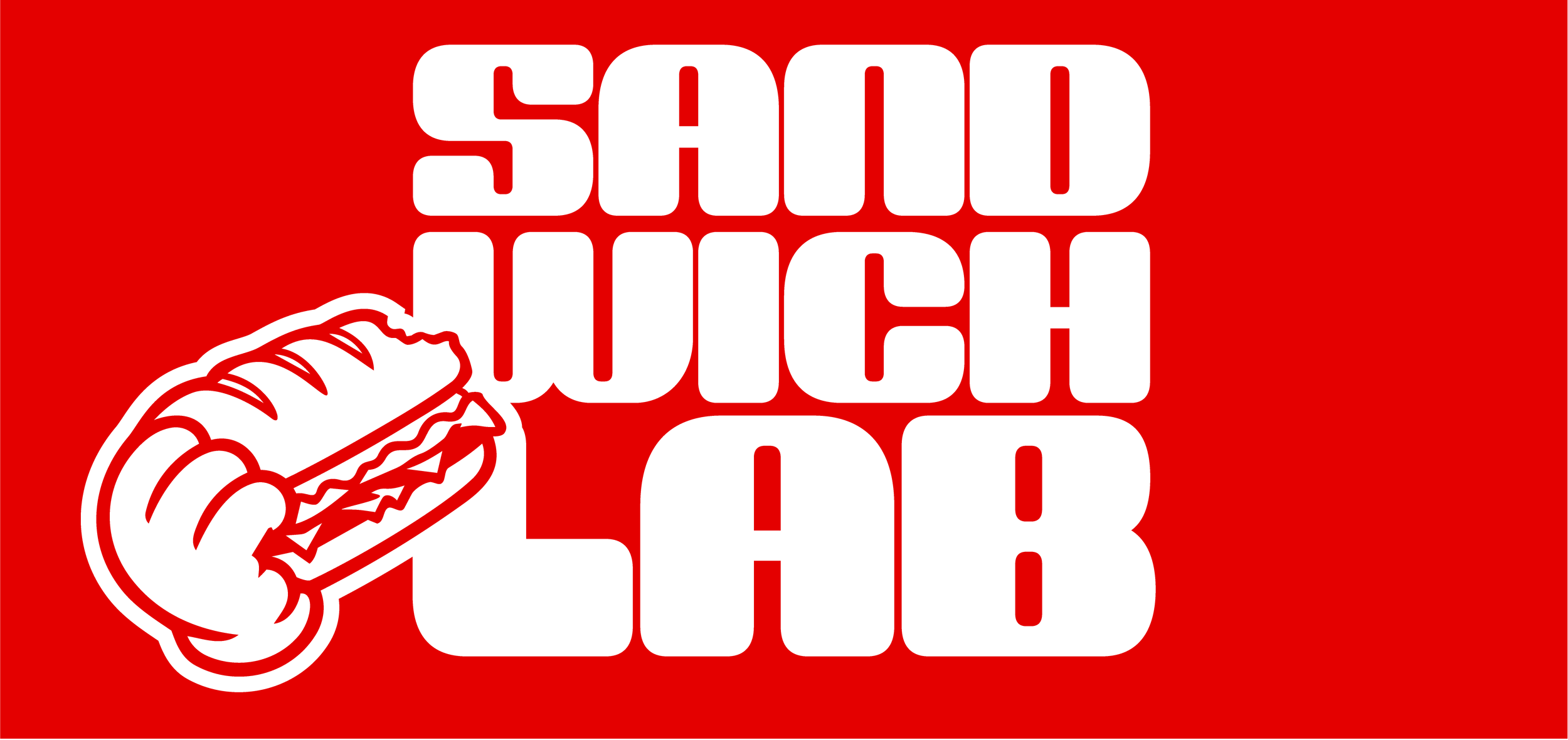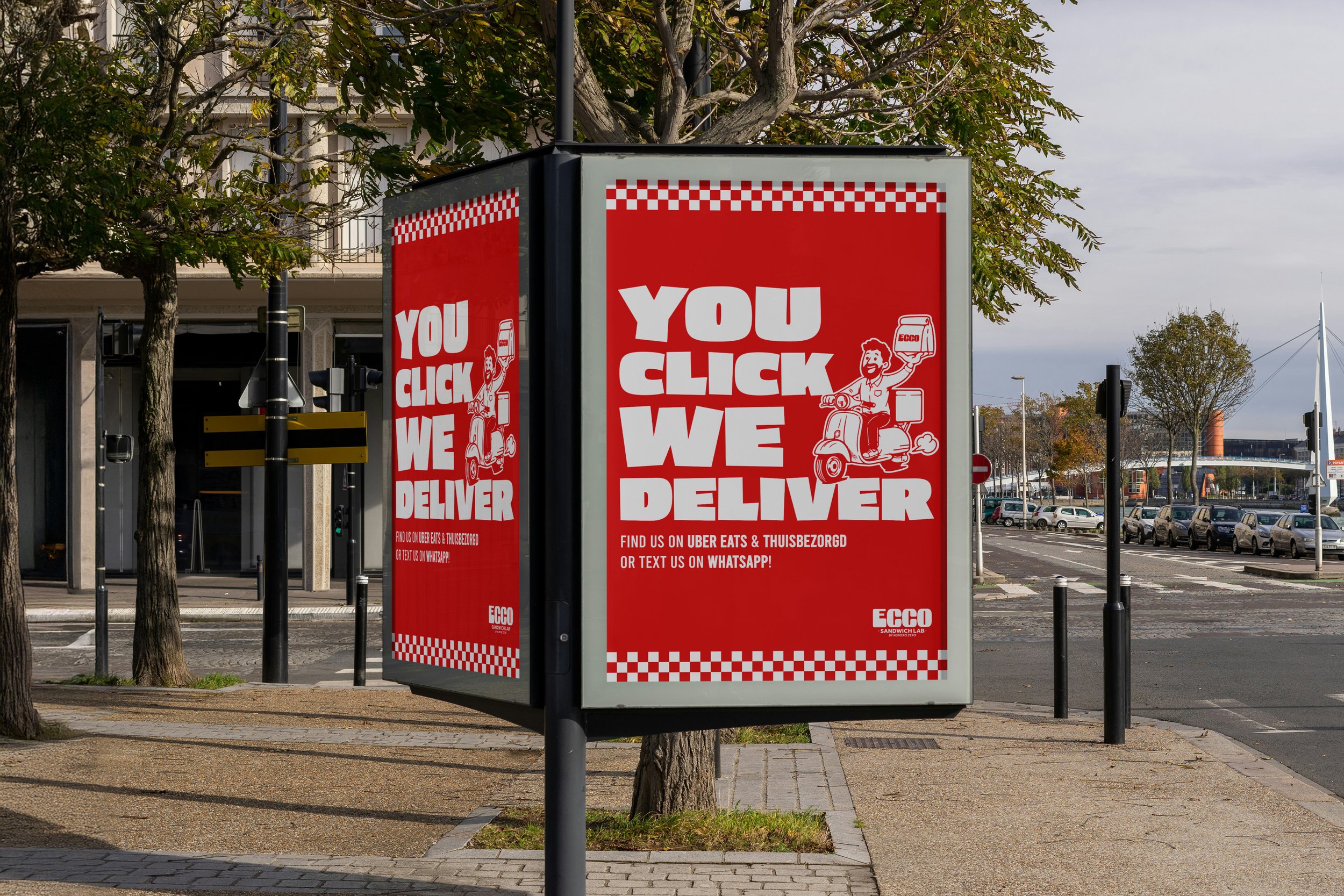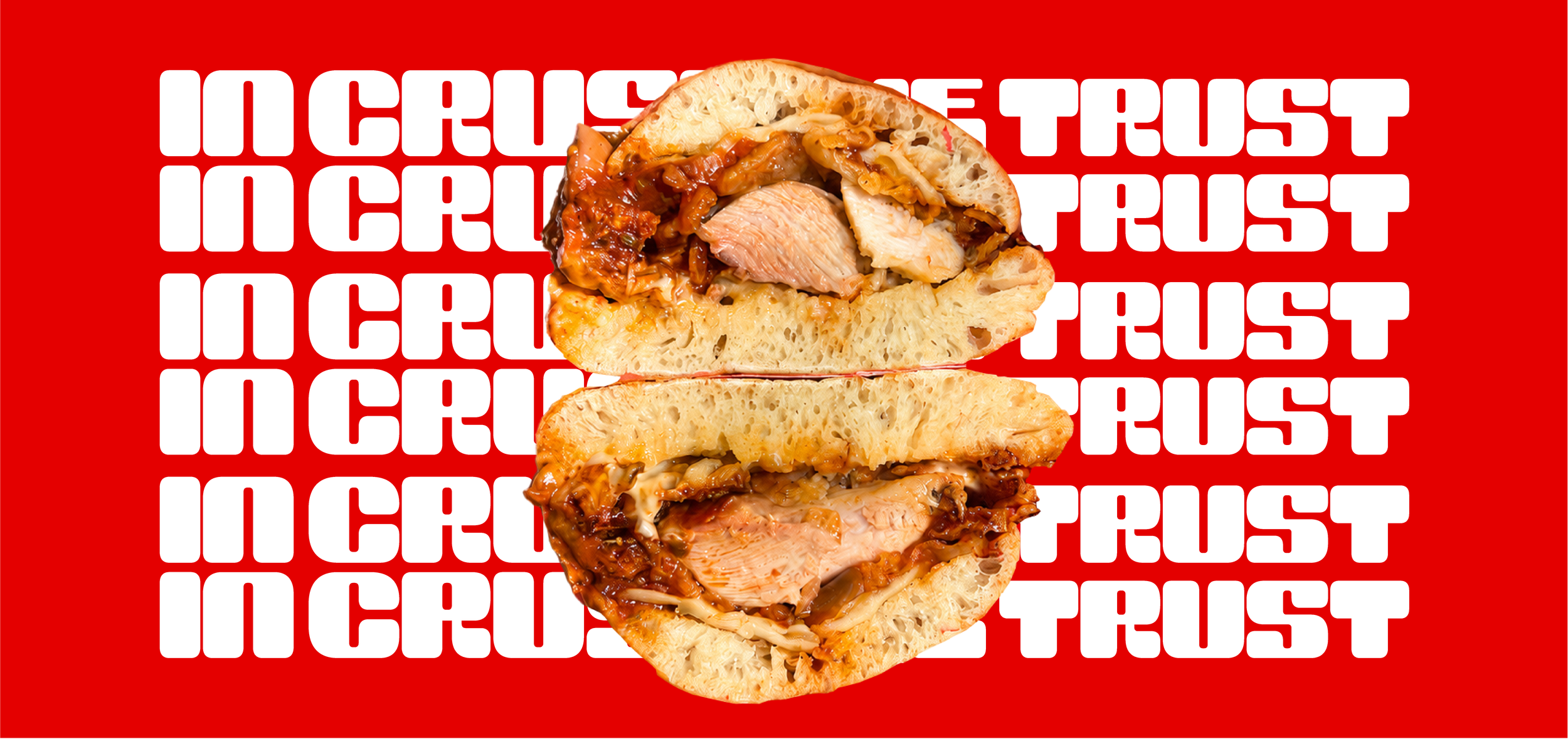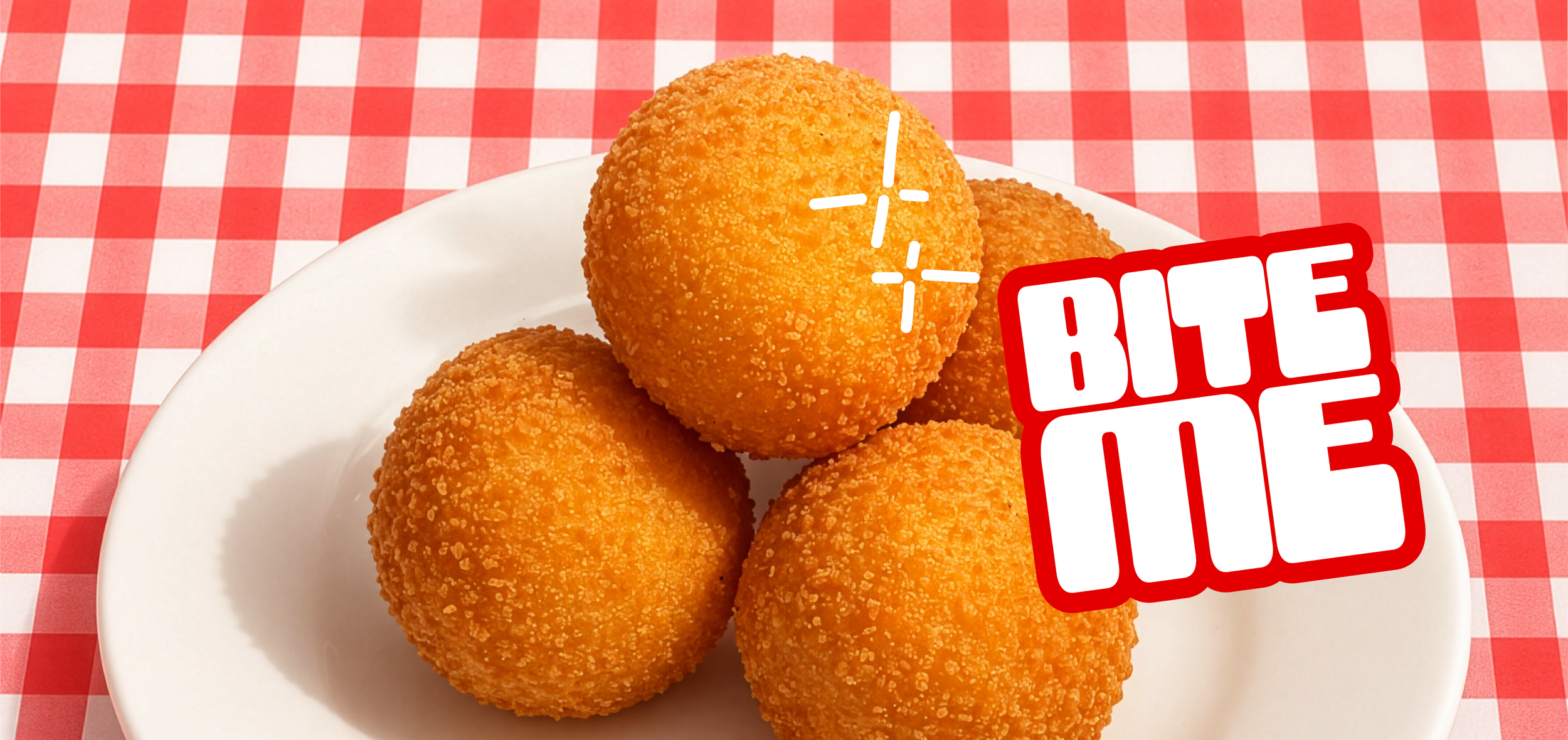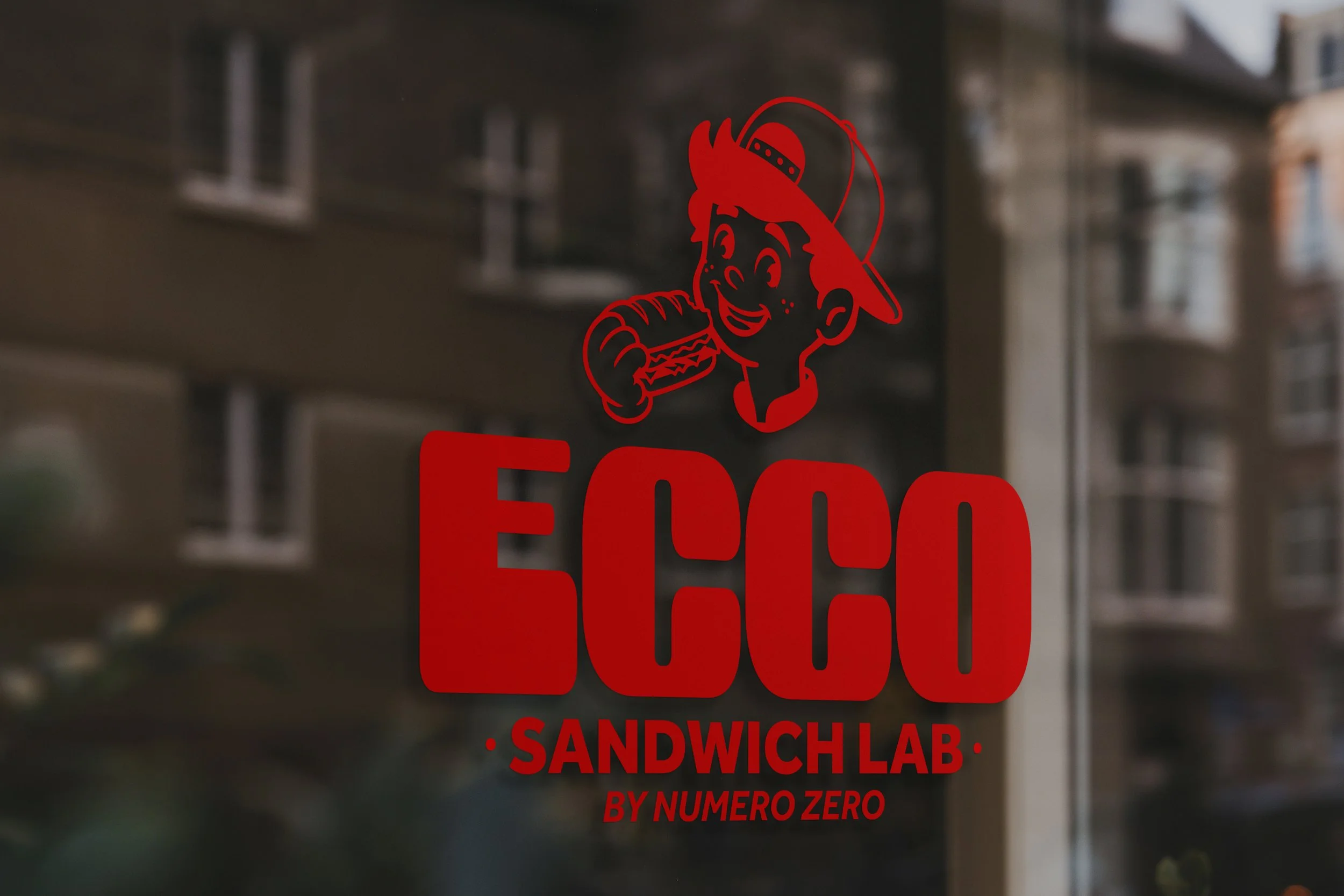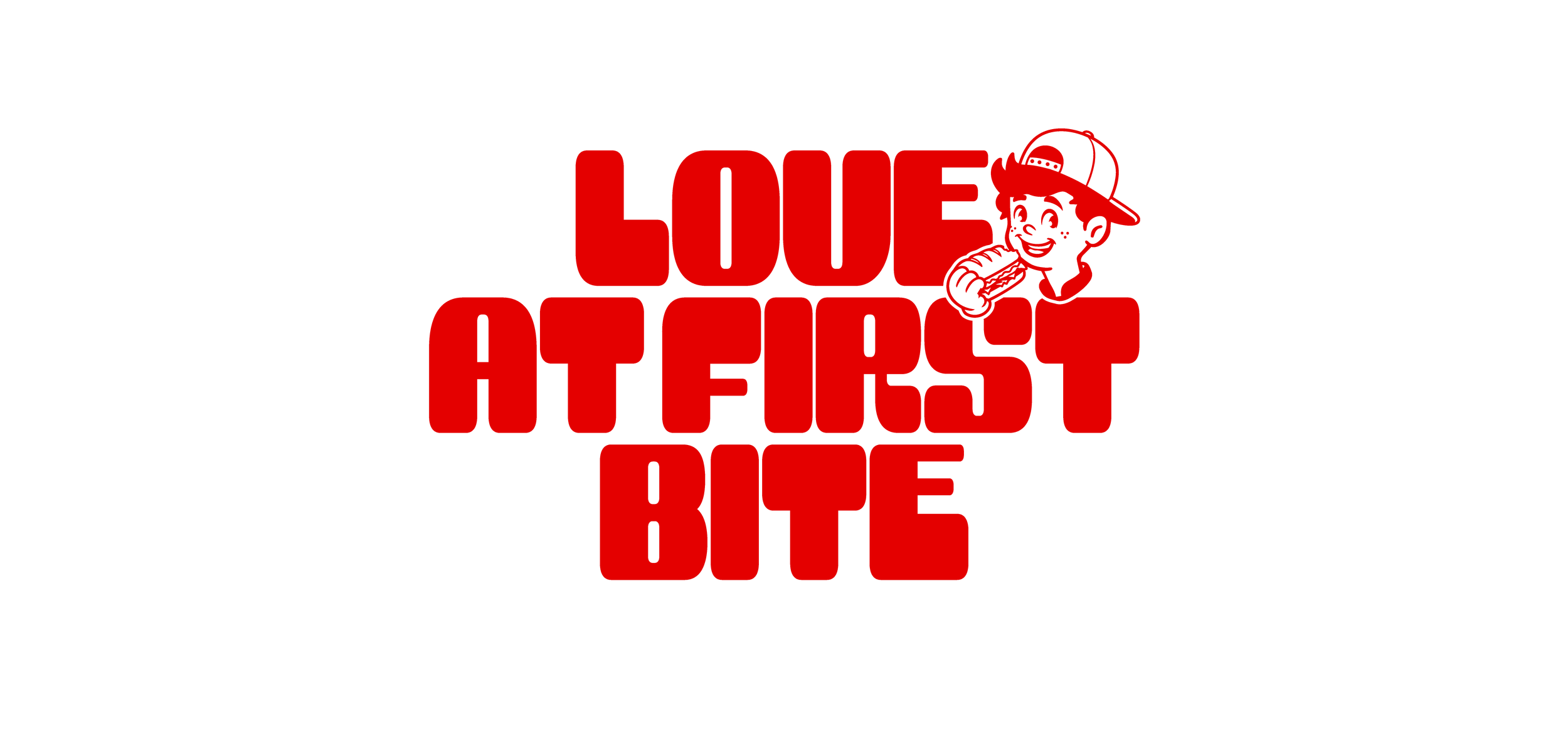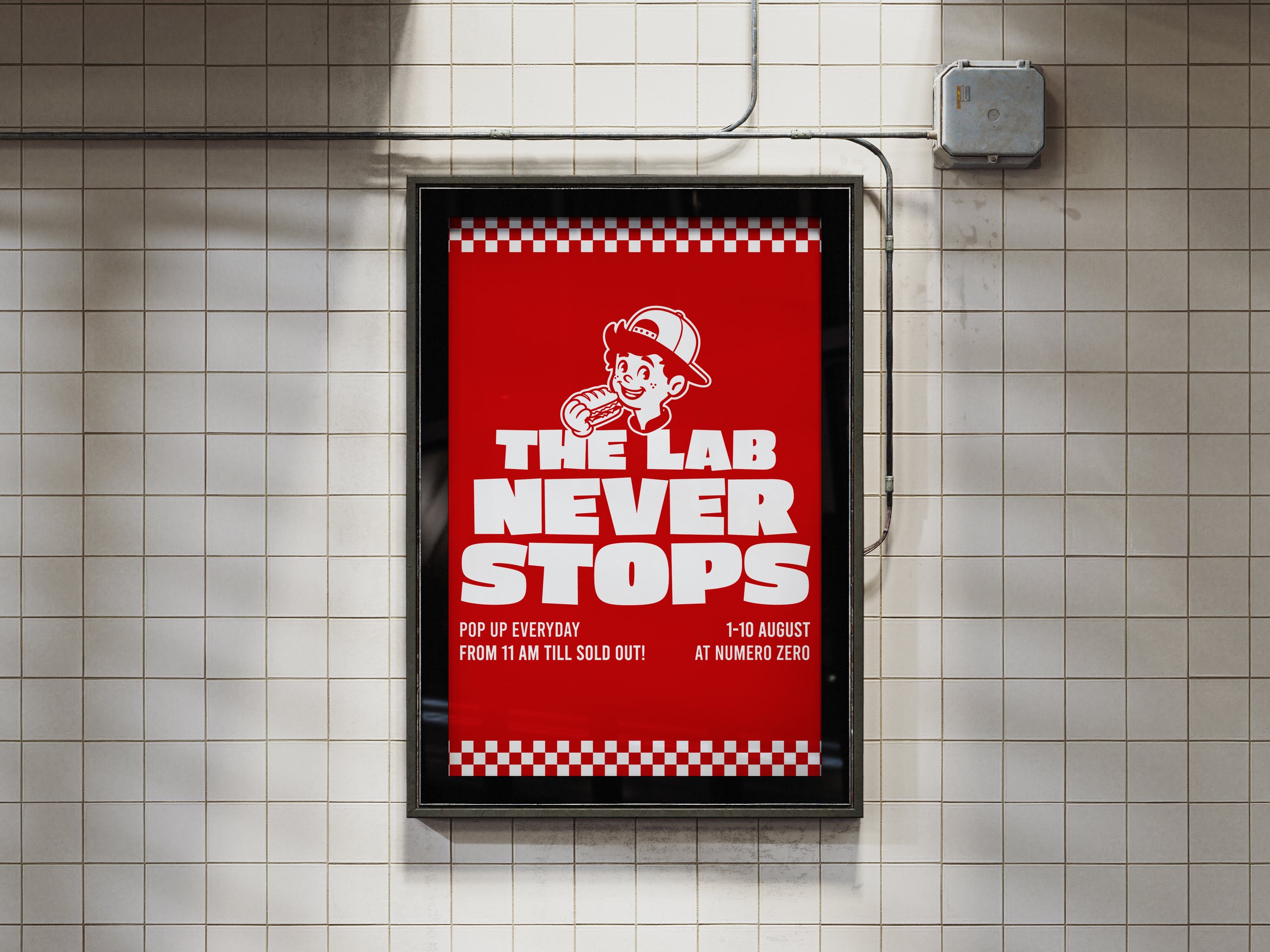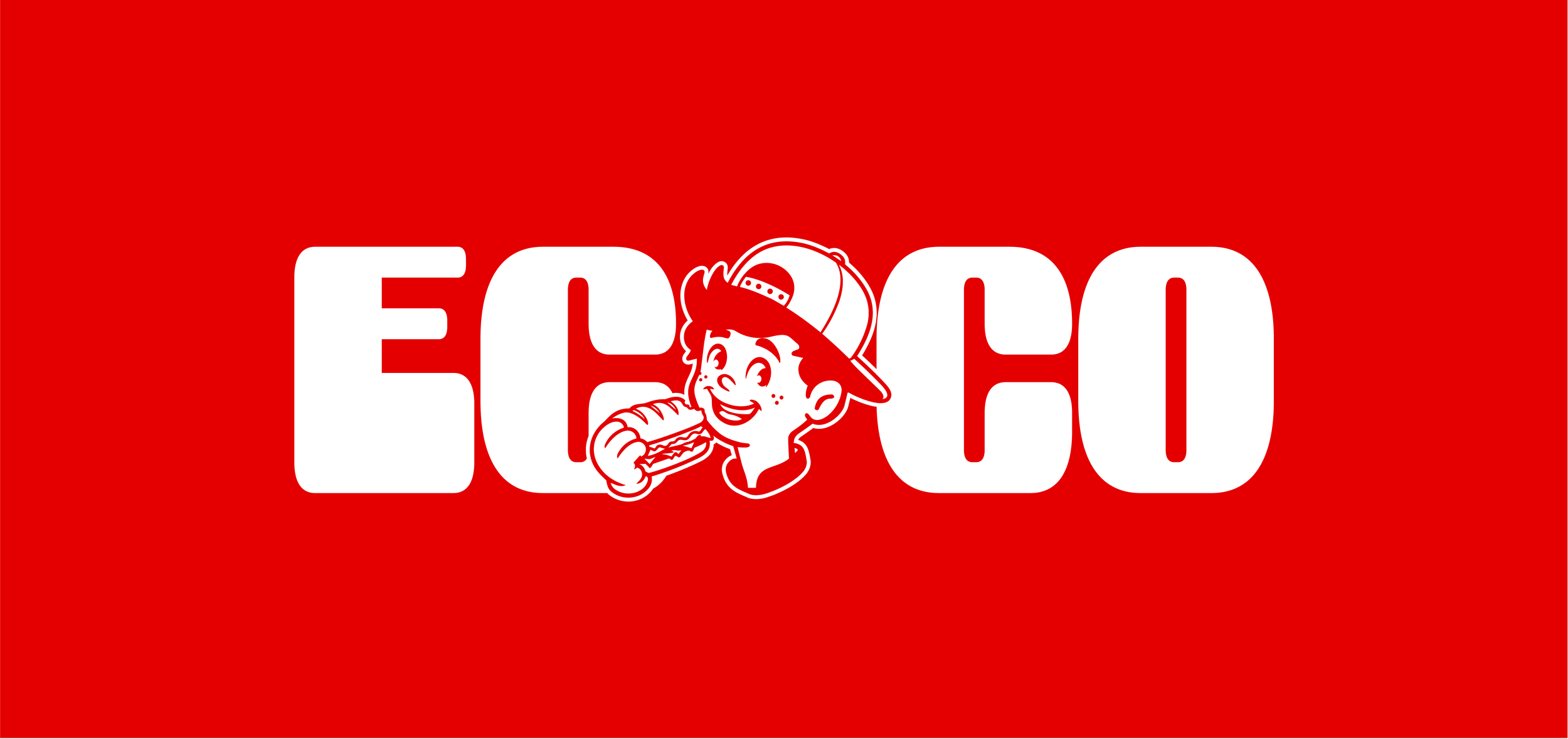
Ecco Sandwich Lab
When Italian cooking hits the streets of Amsterdam, ECCO Sandwich Lab (by Numero Zero Bistro) is born.
For this branding project, we created an identity as cool and dynamic as the man behind the menu, Chef Gigi. Inspired by Gigi’s Italian roots and personal street style, we designed a fun mascot logo and a strong visual identity.
With bright red color, bold typography, and playful cartoon vibes, the entire look is unique, energetic, and full of character from the logo
to the packaging and street posters. It’s simple, cool, and memorable.
Just like a great sandwich.